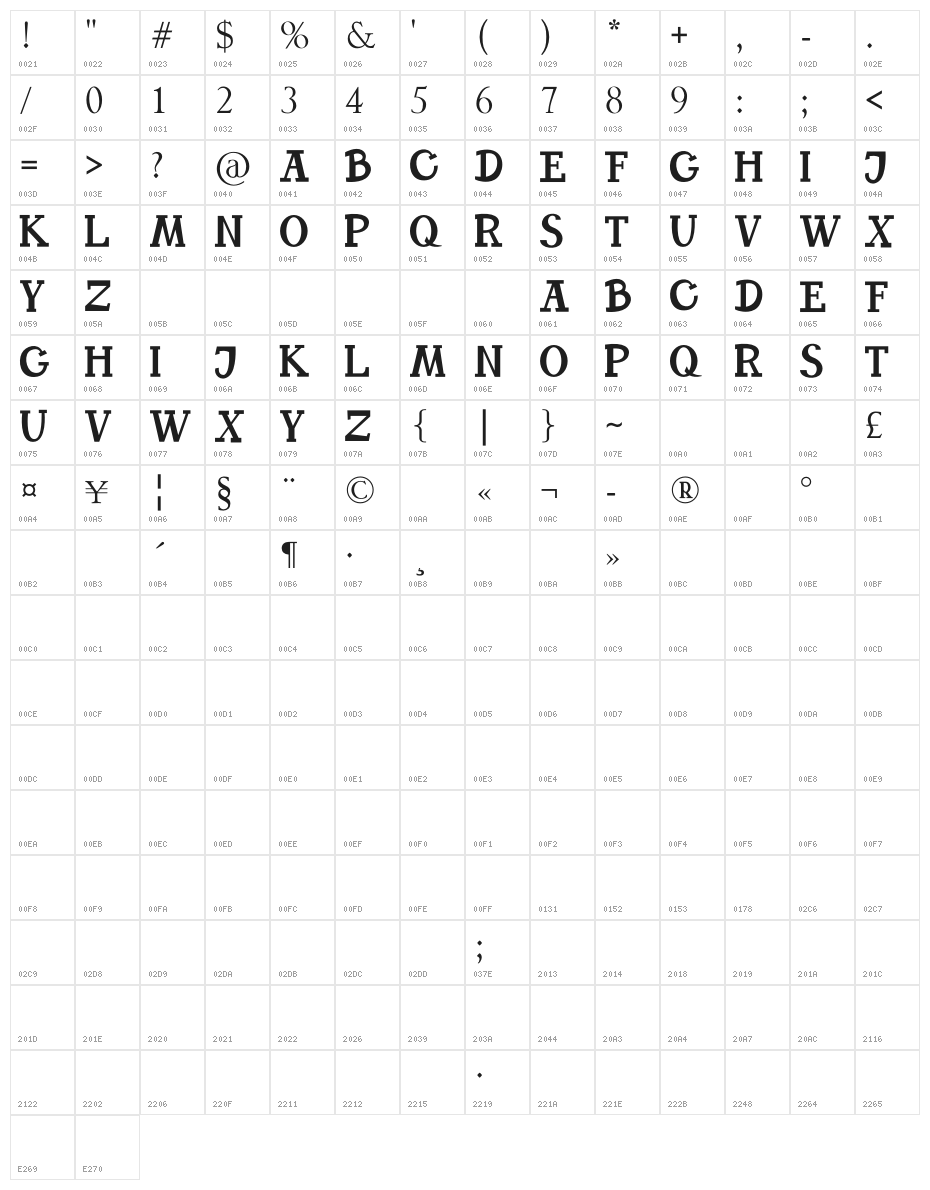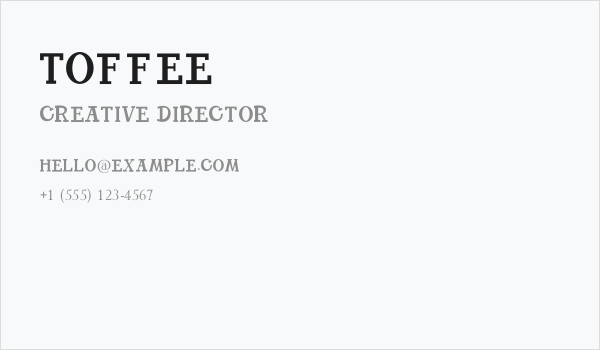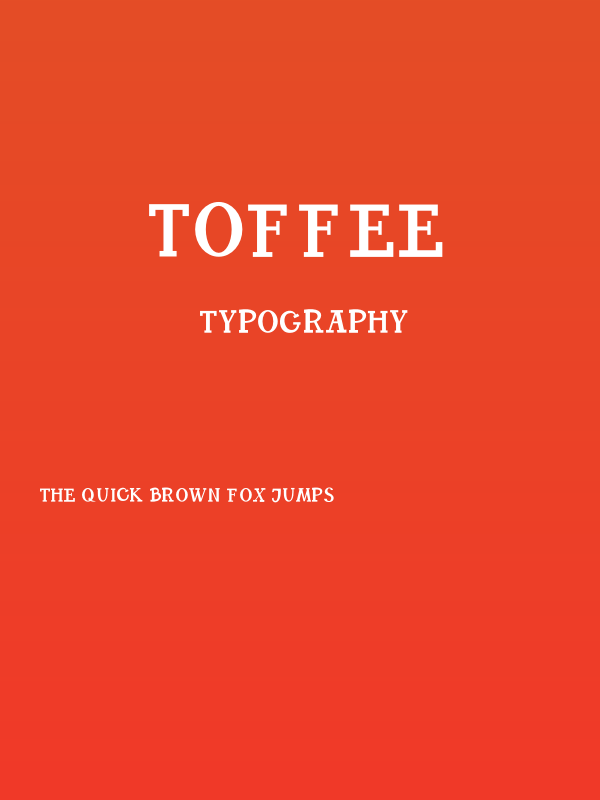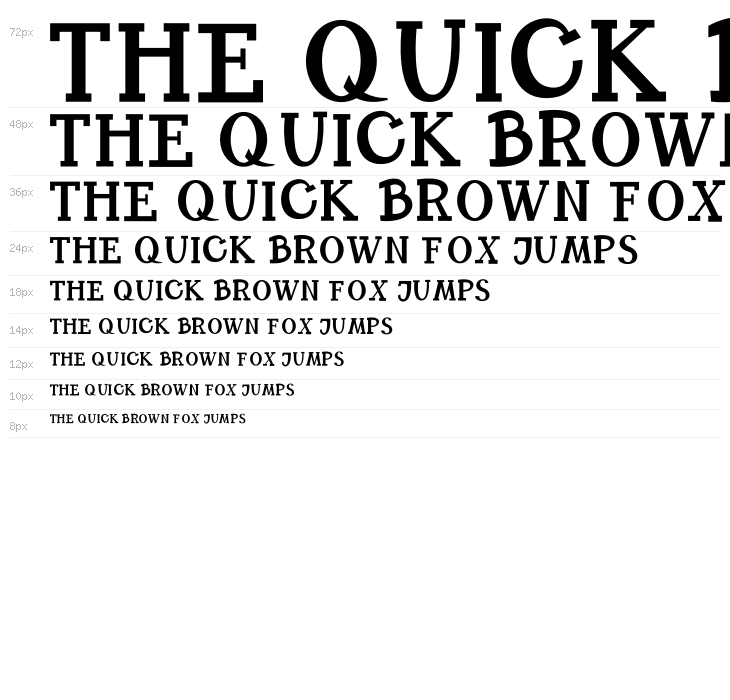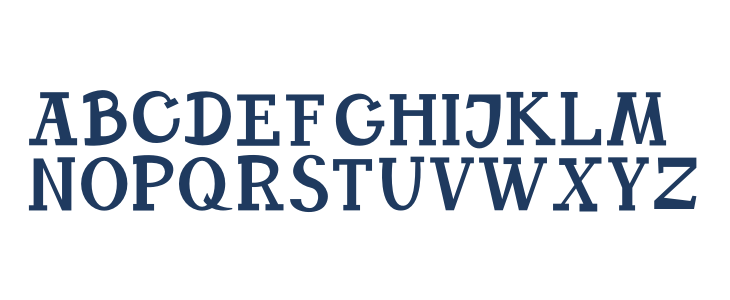
TOFFEE Font
TOFFEE Description
This font features a bold and classic serif style, characterized by its strong, angular serifs and a slightly condensed structure. The uppercase letters exhibit a traditional form with a touch of modernity, making them suitable for impactful headlines. The numerals are clear and distinct, maintaining the font's overall boldness. Special characters are well-defined, ensuring readability and versatility across various applications. The font's design is both authoritative and elegant, making it ideal for projects that require a strong visual presence.
| Proposed Projects | Ideal for book covers, editorial headlines, branding, and formal invitations. |